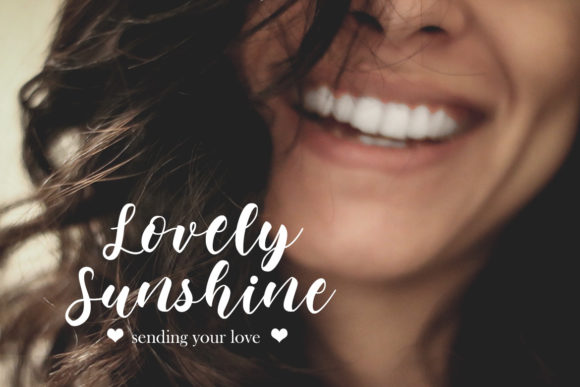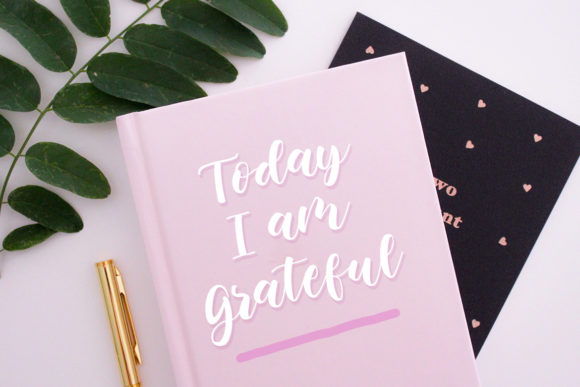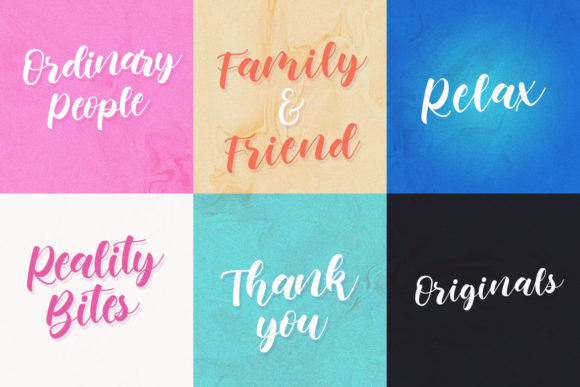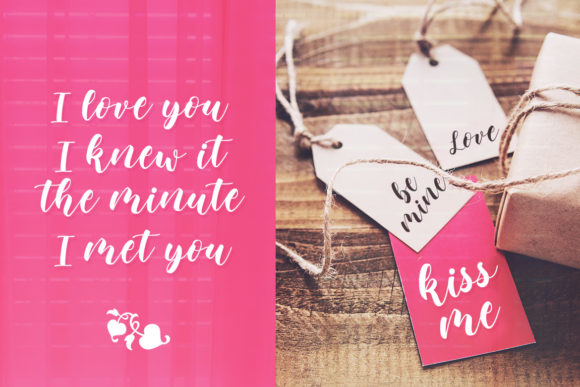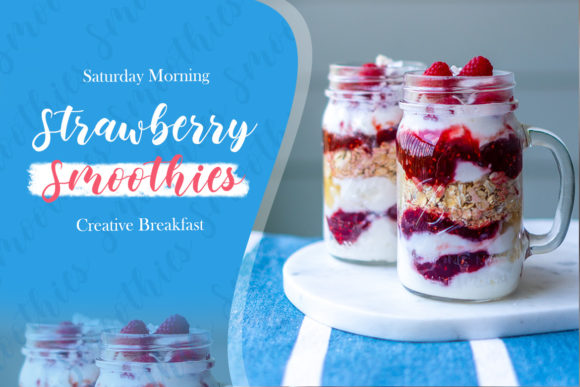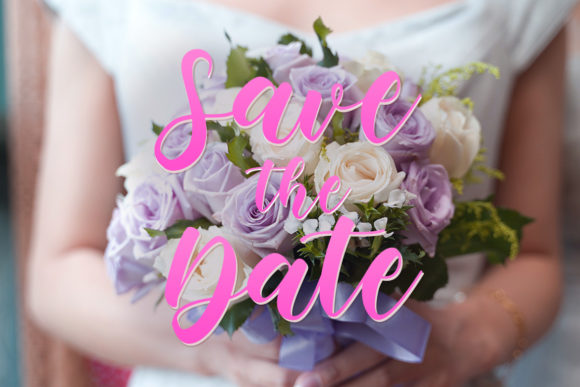
Discover the Charm of Belarosa Font: Elevate Your Designs with this Beautiful Script Font
Are you on the hunt for a font that adds a touch of elegance and playfulness to your designs? Look no further than the Belarosa Font! This stunning script font is designed to bring a sense of joy and sophistication to your creative projects. In this article, we’ll dive into the world of Belarosa Font, exploring its features, benefits, and uses, and why it’s a must-have for designers and crafters alike.
What is Belarosa Font?
Belarosa is a beautiful and chic script font that boasts a cute and joyful style. Its unique and elegant design makes it perfect for a wide range of creative projects, from branding and advertising to crafting and scrapbooking. With its flowing lines and delicate curves, Belarosa Font is sure to add a touch of whimsy and charm to your designs.
Key Features of Belarosa Font
- Unique and Elegant Design: Belarosa Font features a one-of-a-kind design that’s both elegant and playful. Its flowing lines and delicate curves make it perfect for creating beautiful and eye-catching designs.
- High-Quality Letters and Characters: Belarosa Font includes a wide range of letters and characters, ensuring that you have everything you need to create stunning designs.
- Easy to Use: Belarosa Font is incredibly easy to use, making it perfect for designers and crafters of all skill levels.
- Versatile: Belarosa Font can be used for a wide range of creative projects, from digital designs to print materials.
Benefits of Using Belarosa Font
So, why should you choose Belarosa Font for your next creative project? Here are just a few benefits of using this amazing script font:
- Adds a Touch of Elegance: Belarosa Font adds a touch of elegance and sophistication to your designs, making them perfect for high-end branding and advertising projects.
- Creates a Personal Touch: The playful and whimsical design of Belarosa Font allows you to add a personal touch to your designs, making them more relatable and engaging.
- Perfect for Crafting and Scrapbooking: Belarosa Font is a great choice for crafters and scrapbookers who want to add a touch of elegance and whimsy to their projects.
Uses of Belarosa Font
Belarosa Font is incredibly versatile, making it perfect for a wide range of creative projects, including:
- Branding and Advertising: Use Belarosa Font to create stunning logos, business cards, and advertising materials that showcase your brand’s personality.
- Crafting and Scrapbooking: Add a touch of elegance and whimsy to your crafting and scrapbooking projects with Belarosa Font.
- Digital Designs: Use Belarosa Font to create beautiful digital designs, including social media graphics, blog posts, and more.
- Print Materials: Belarosa Font is perfect for print materials, including brochures, flyers, and posters.
Tips for Using Belarosa Font
Here are a few tips for getting the most out of Belarosa Font:
- Pair with Other Fonts: Belarosa Font pairs well with other fonts, so don’t be afraid to get creative and try out different combinations.
- Use for Headings and Titles: Belarosa Font is perfect for headings and titles, adding a touch of elegance and sophistication to your designs.
| Font Name | Belarosa Font |
| Author | Hustletter |